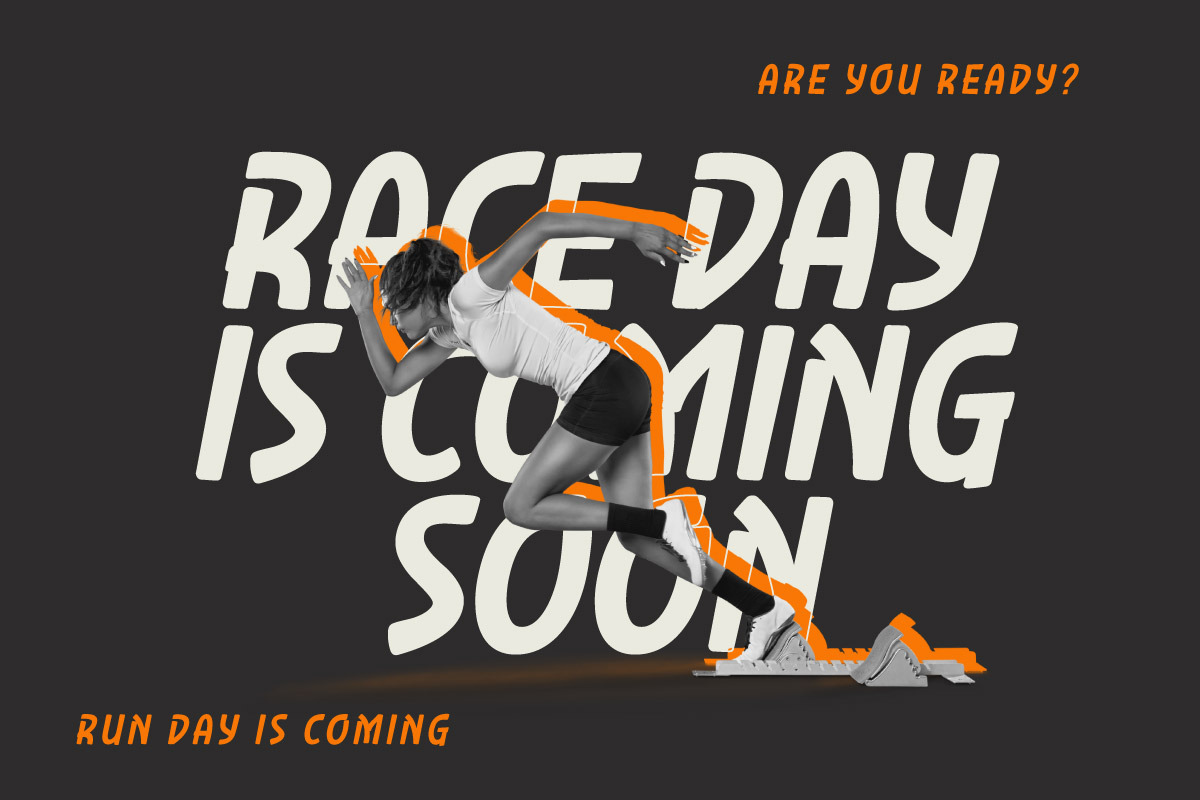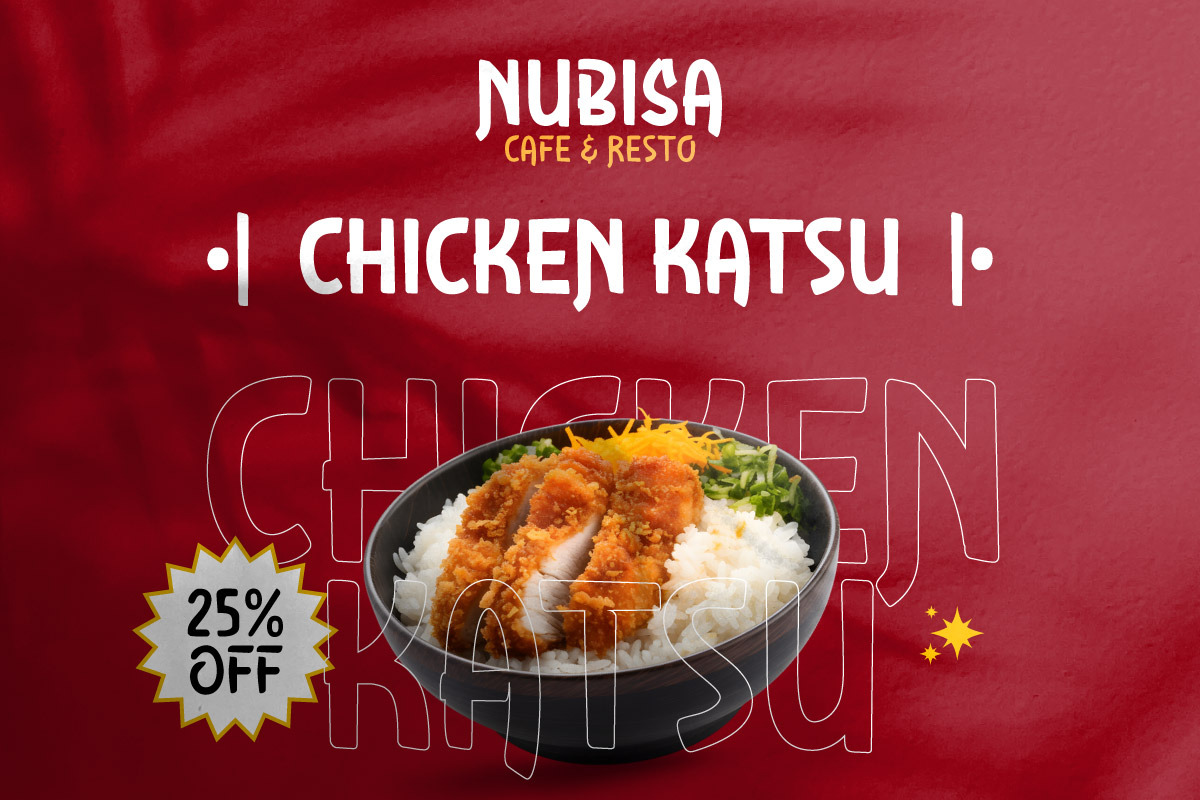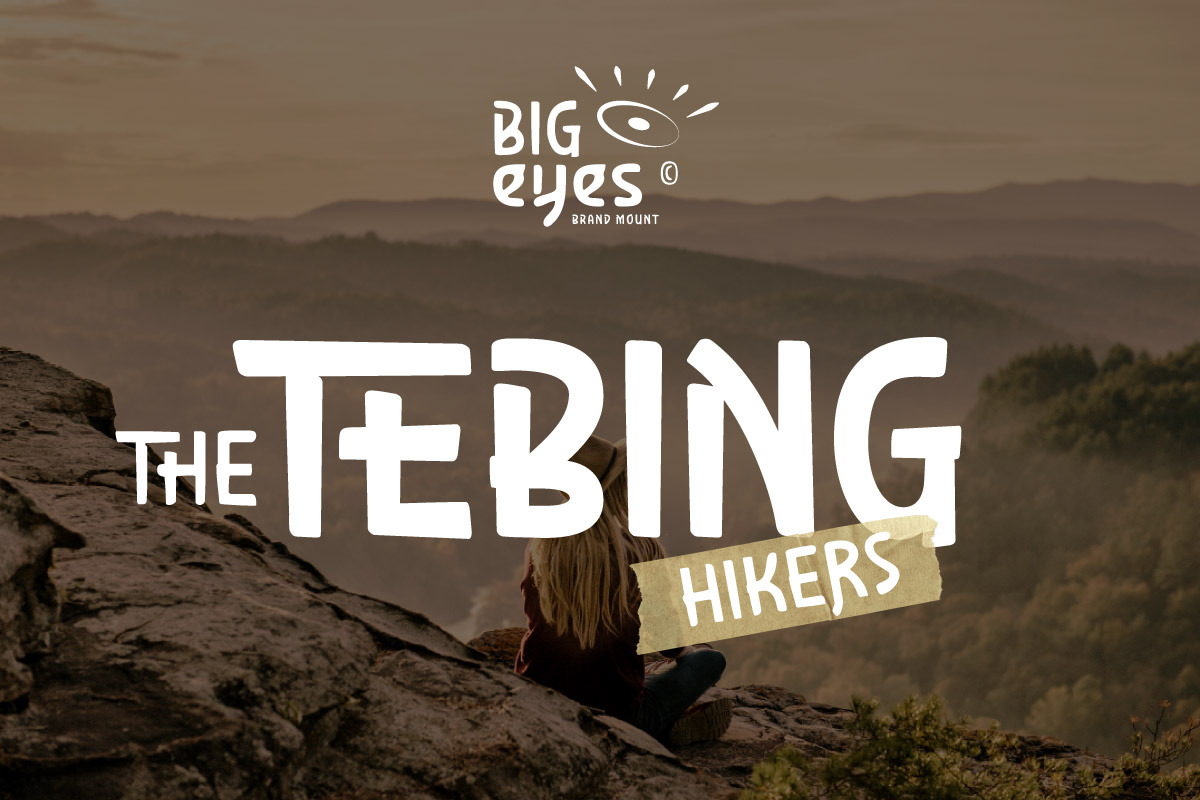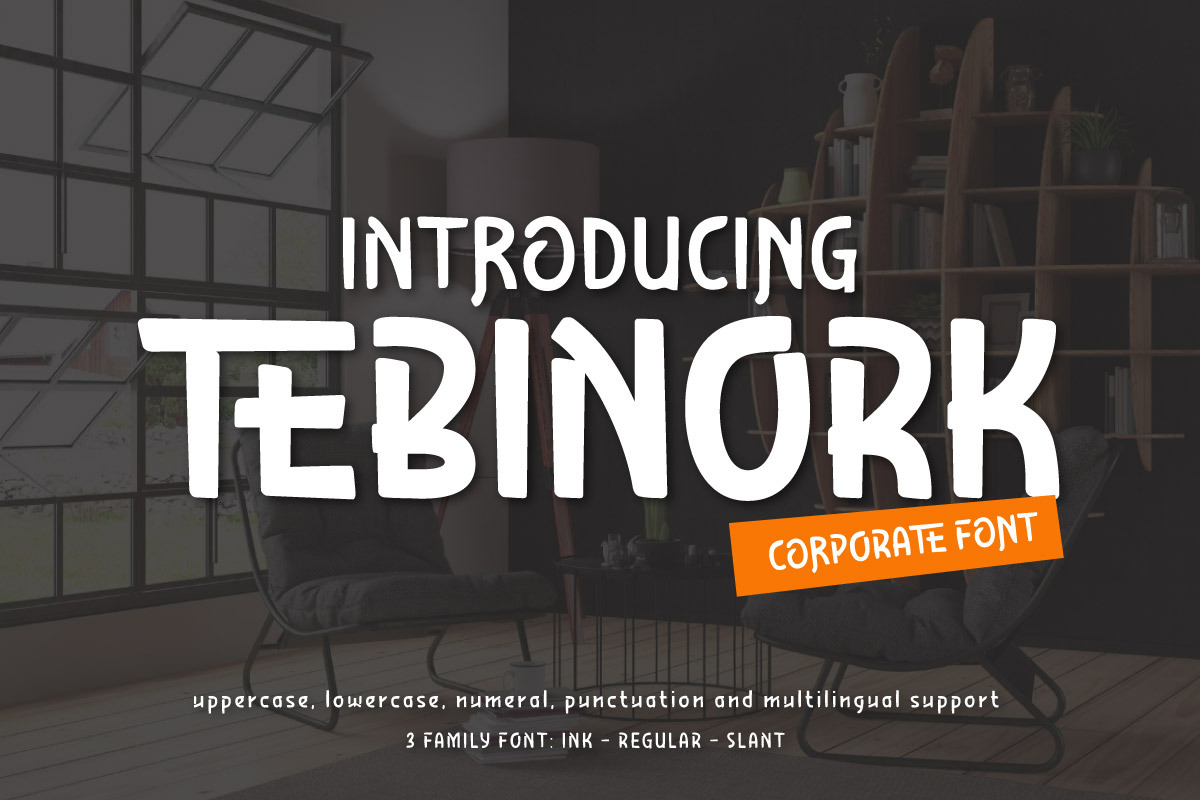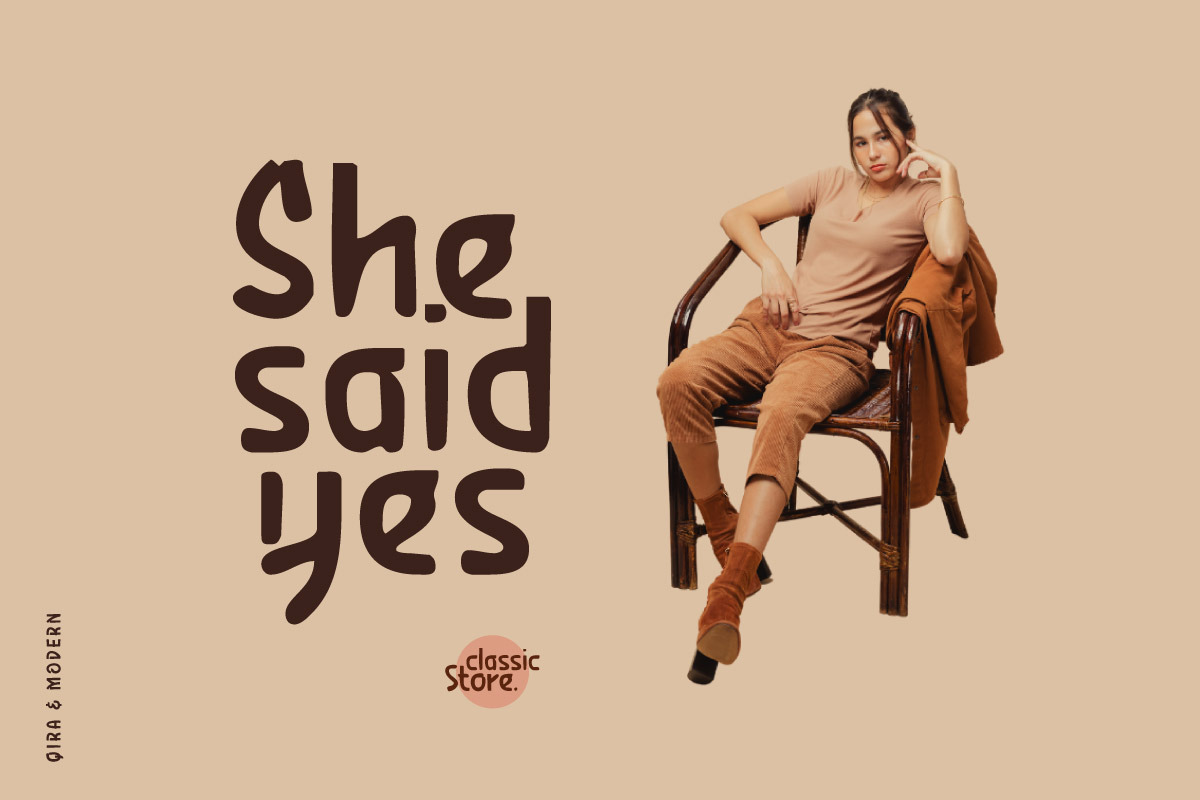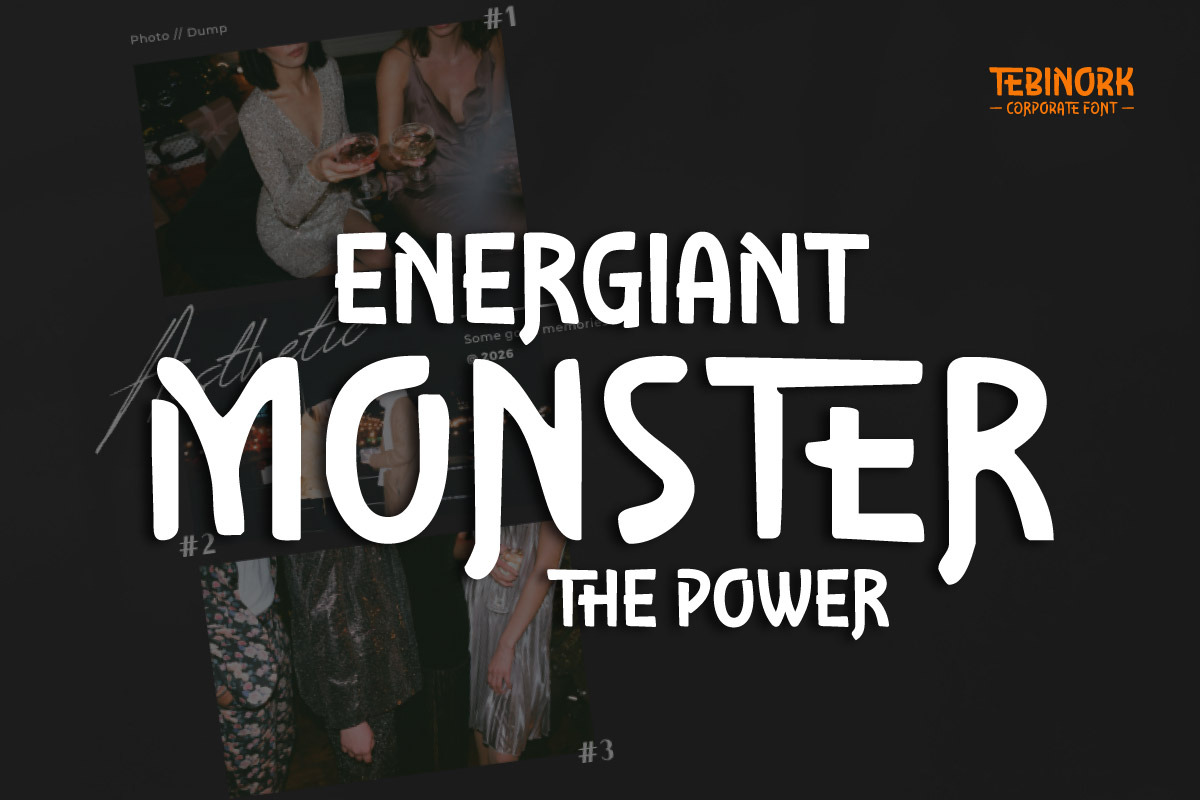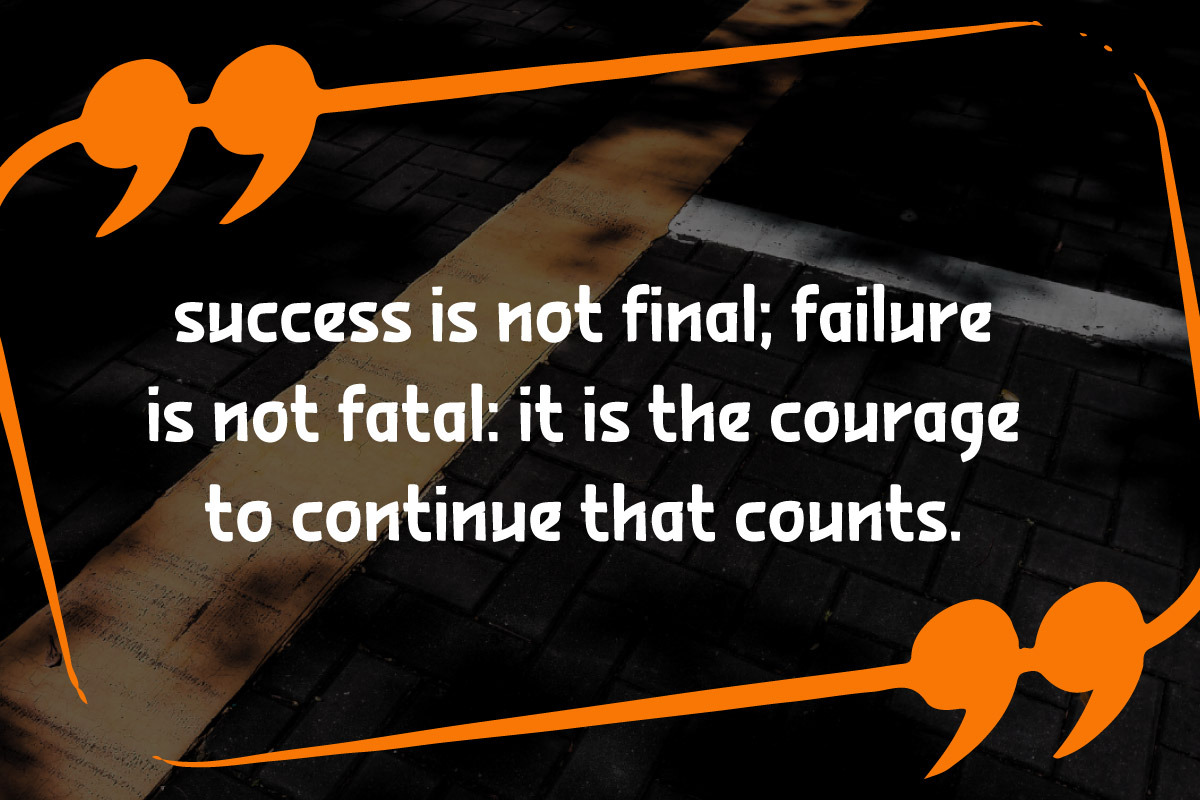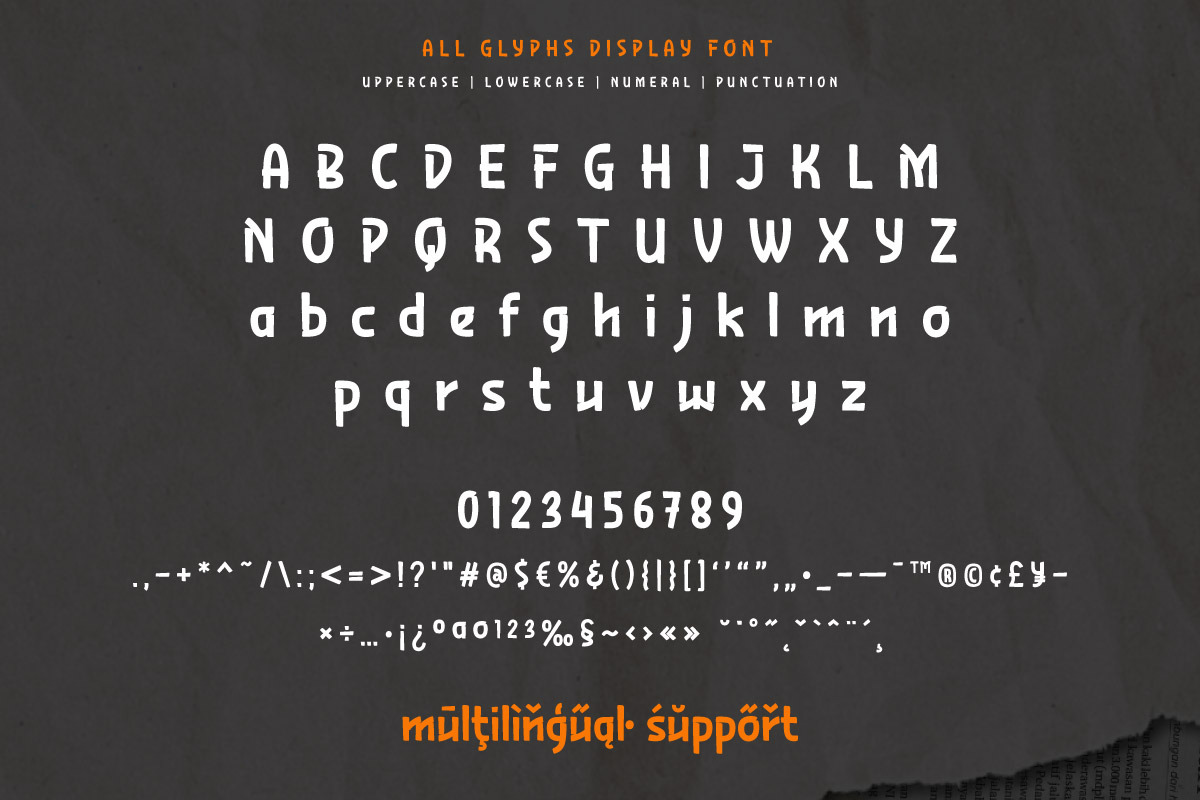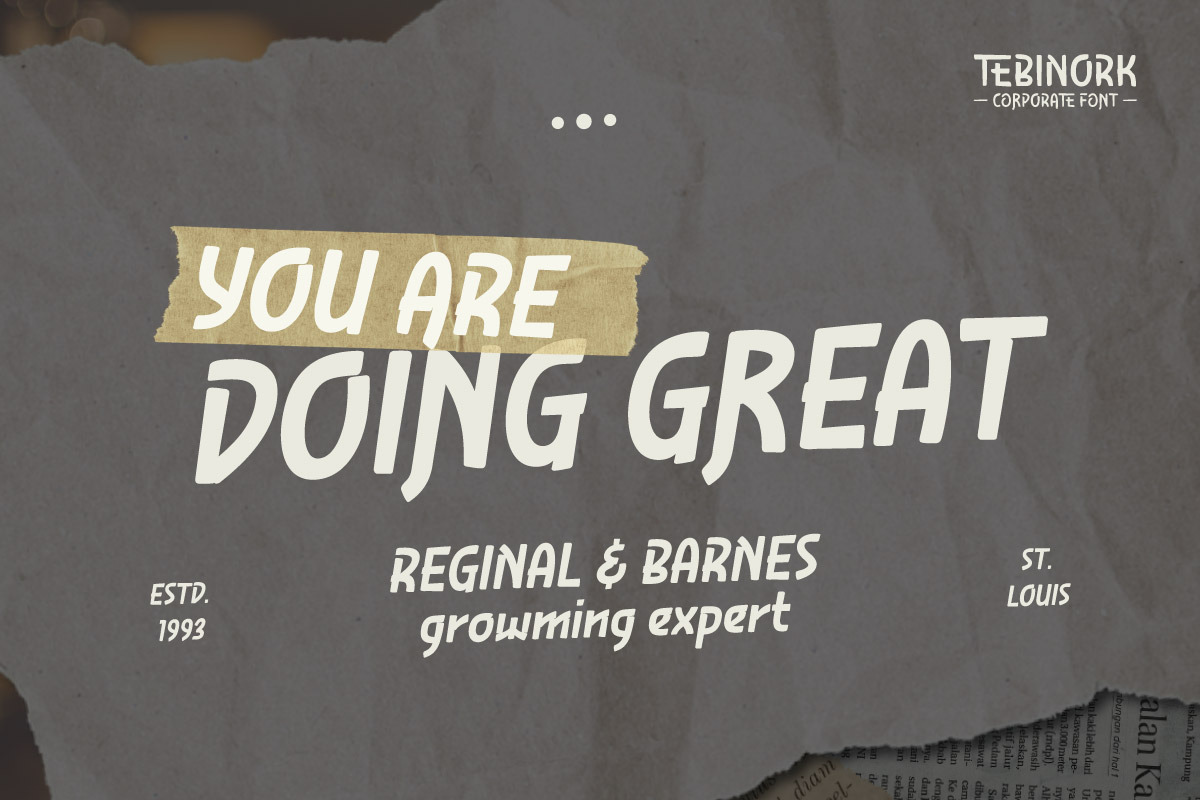
Tebinork - Corporate Display Font
Tebinork elevates corporate messaging with a relaxed brush-style aesthetic, combining professionalism with creativity. Featuring three versatile styles—Regular, Ink, and Slant—this font adapts to a wide range of branding needs. The Regular variant offers clean, smooth strokes ideal for elegant logos and sleek interfaces. Ink provides a textured, hand-drawn feel that adds authenticity and warmth. Slant brings dynamic movement and modern flair, perfect for eye-catching headlines or social media visuals.
Crafted with balanced curves and deliberate spacing, Tebinork ensures legibility in both print and digital formats. Its brush-inspired forms deliver a friendly yet polished tone, making it suitable for corporate presentations, creative agency branding, lifestyle product labels, and professional documents that need a touch of human personality. Whether you're looking for clean simplicity, artistic texture, or energetic motion, Tebinork has the style to fit.
Use Tebinork to communicate with confidence and character—where business meets approachability, and every stroke conveys intent.